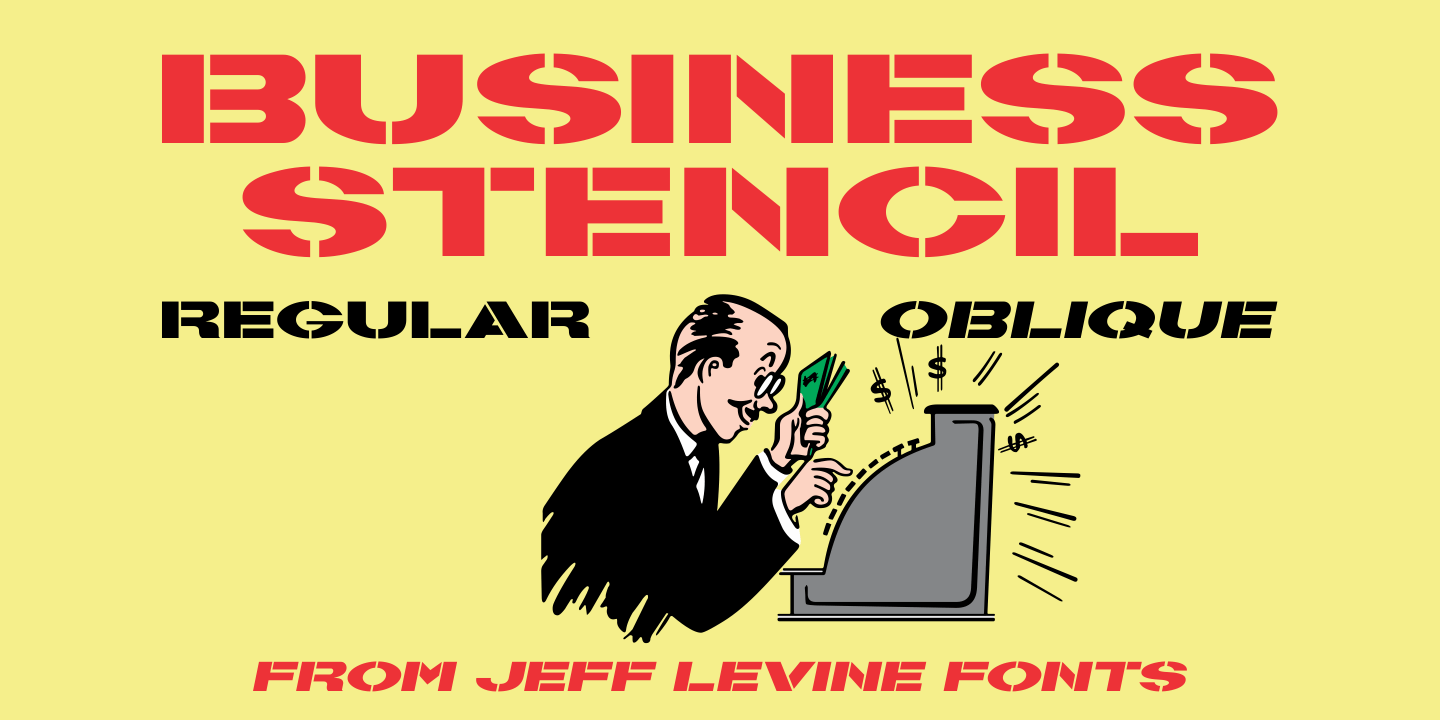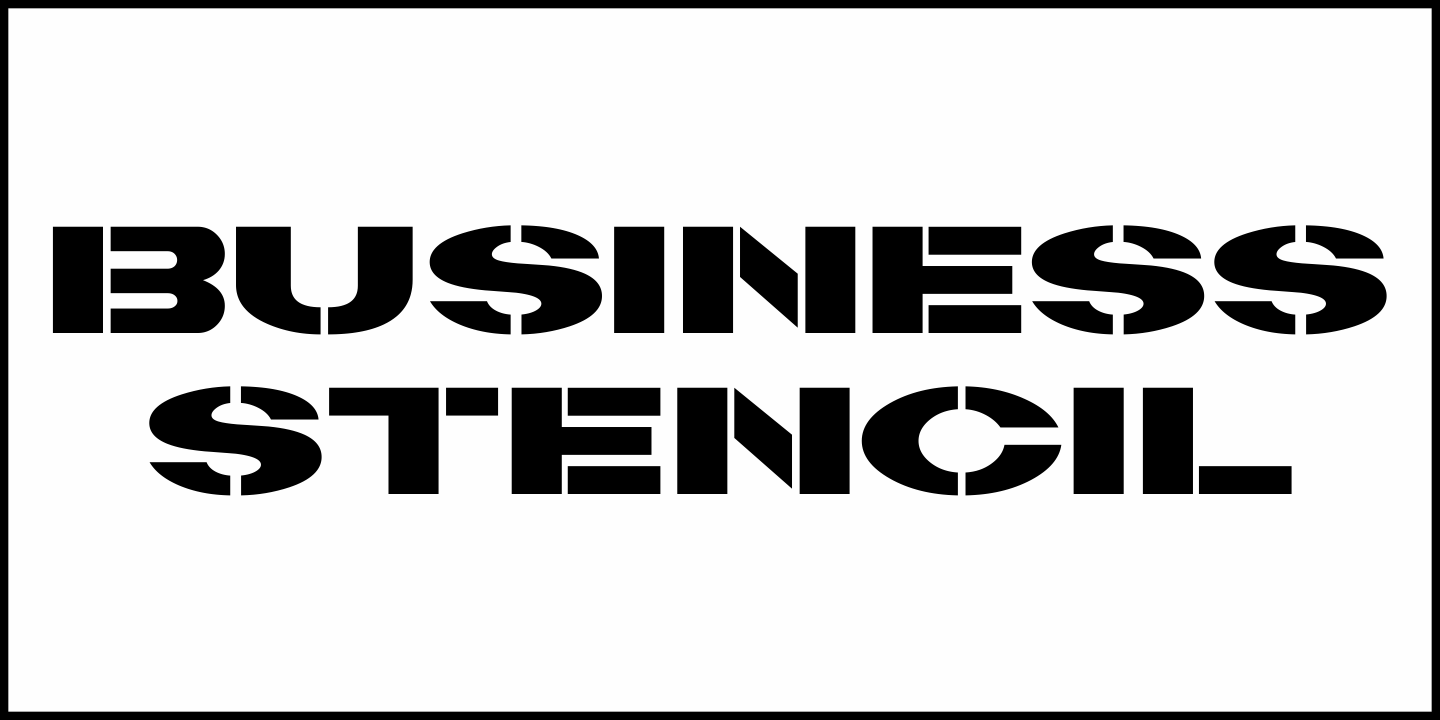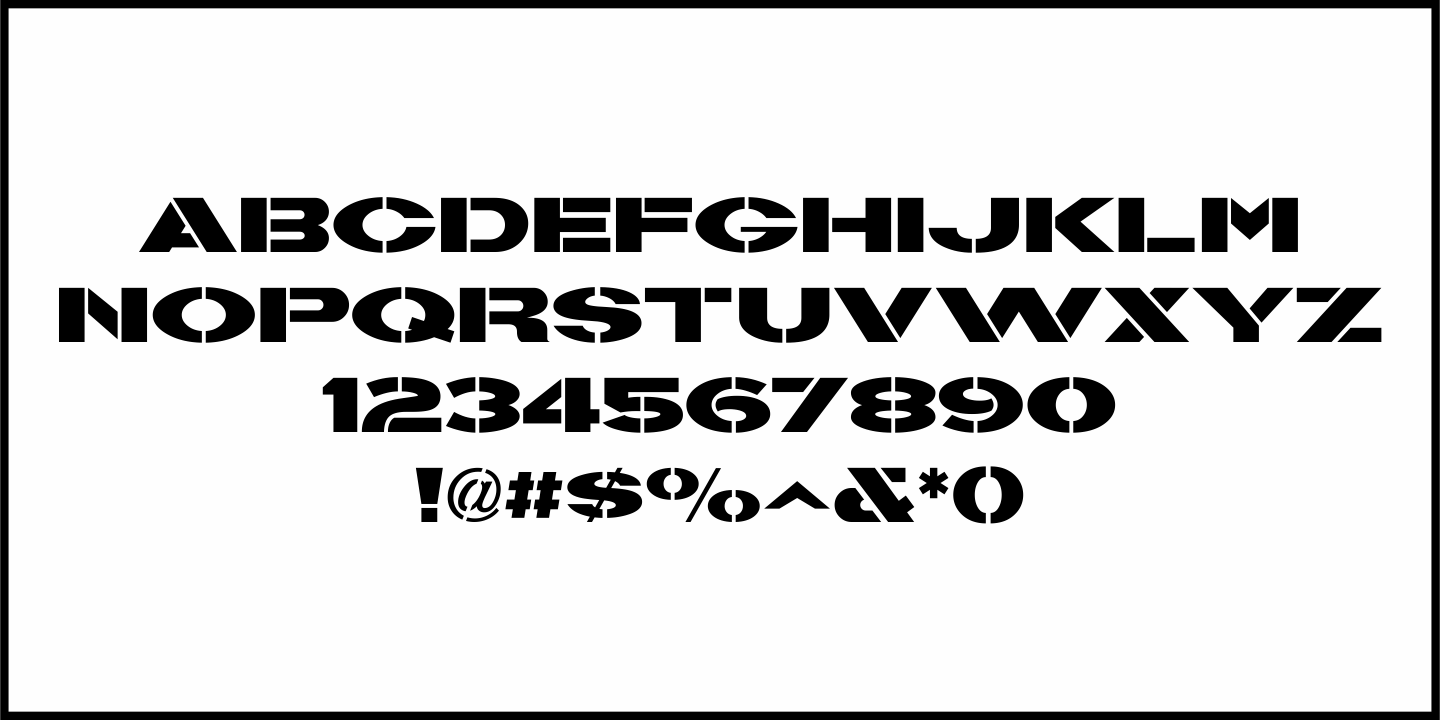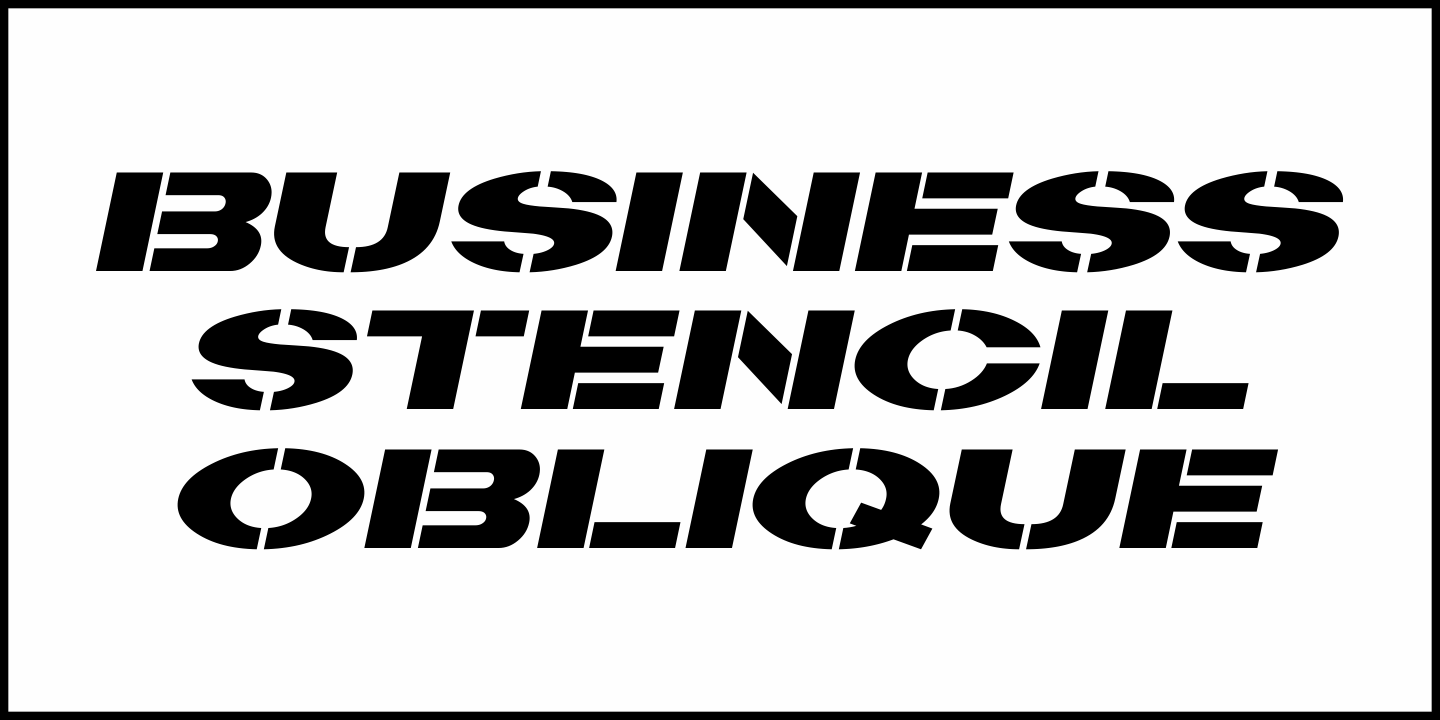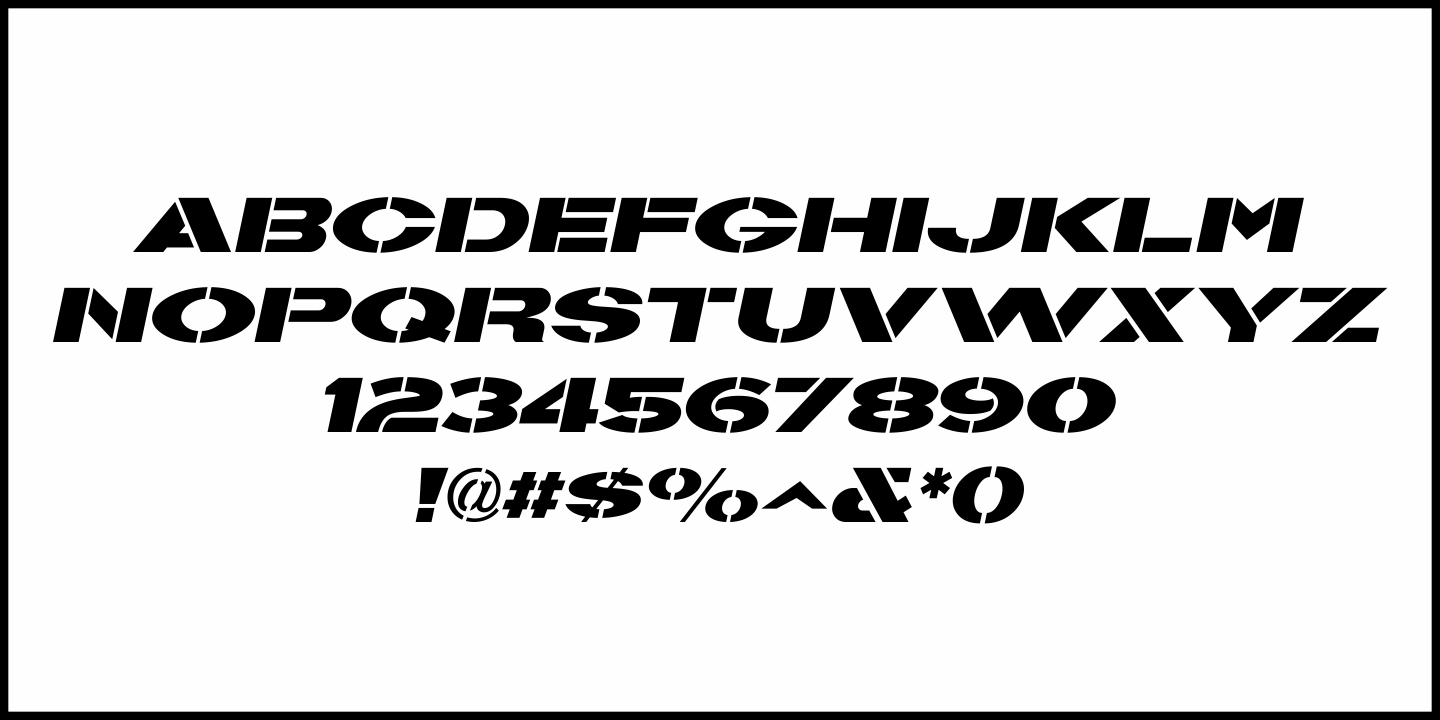
Business Stencil
The wide stencil sans lettering used for the title of an article called "Choose Your Stars" in the October, 1954 issue of Photoplay magazine inspired Business Stencil JNL.
This extra bold type design is available in both regular and oblique versions.